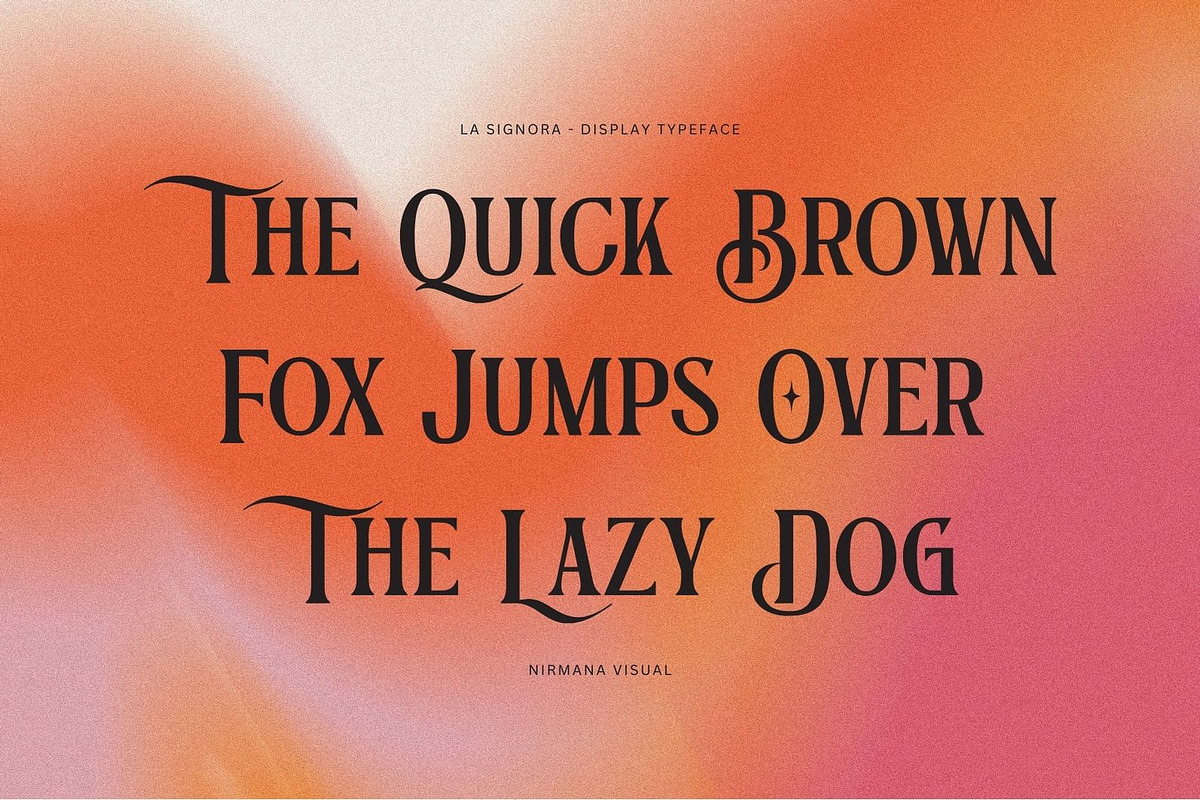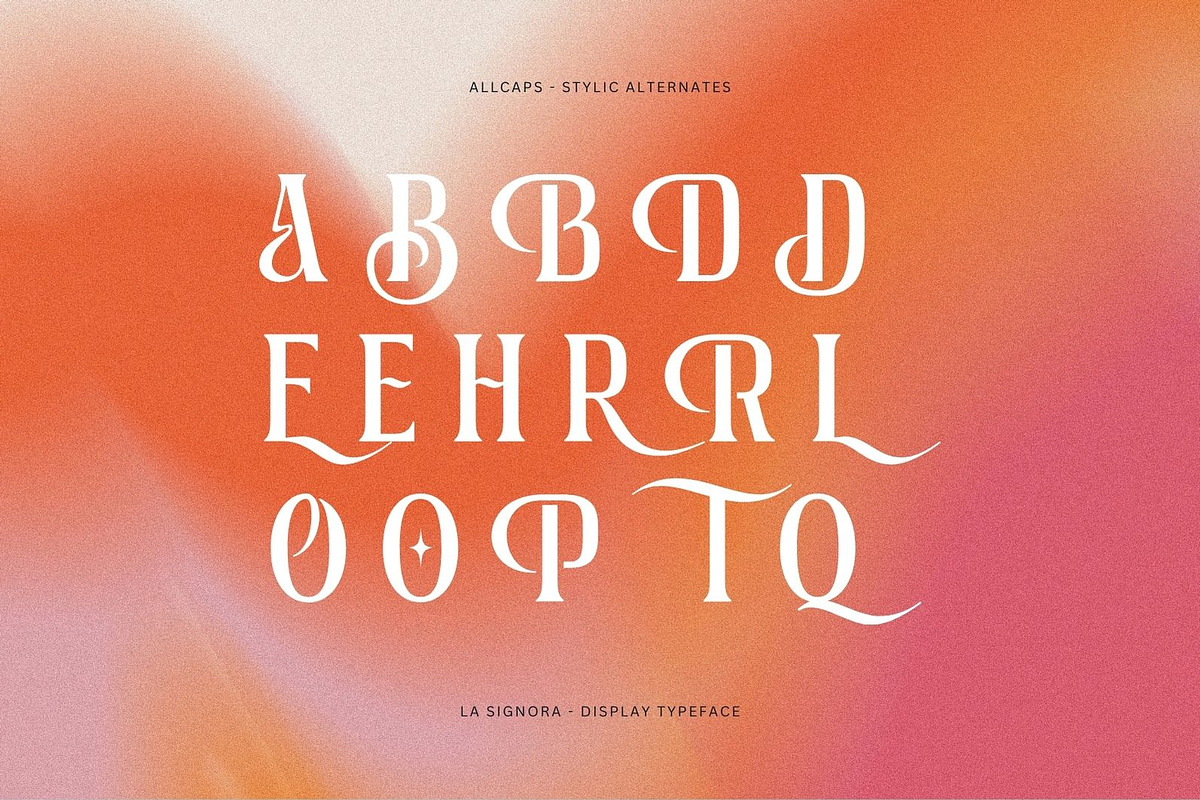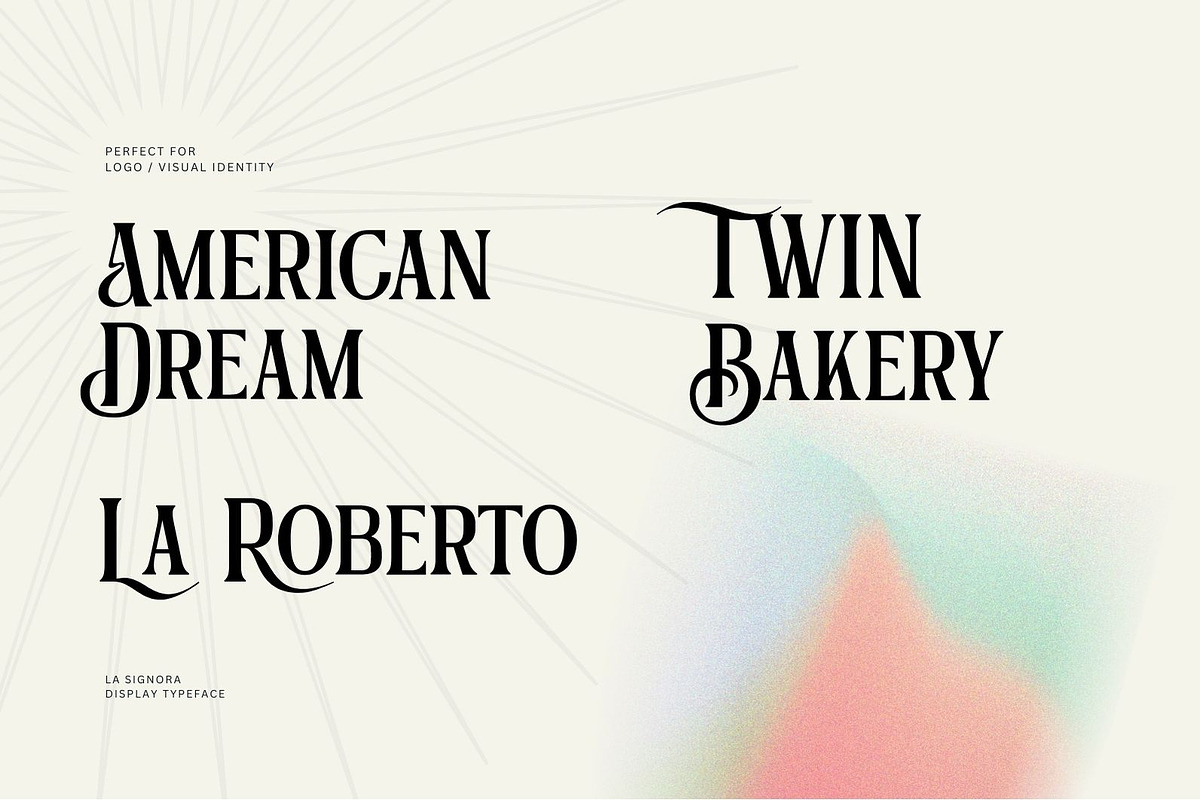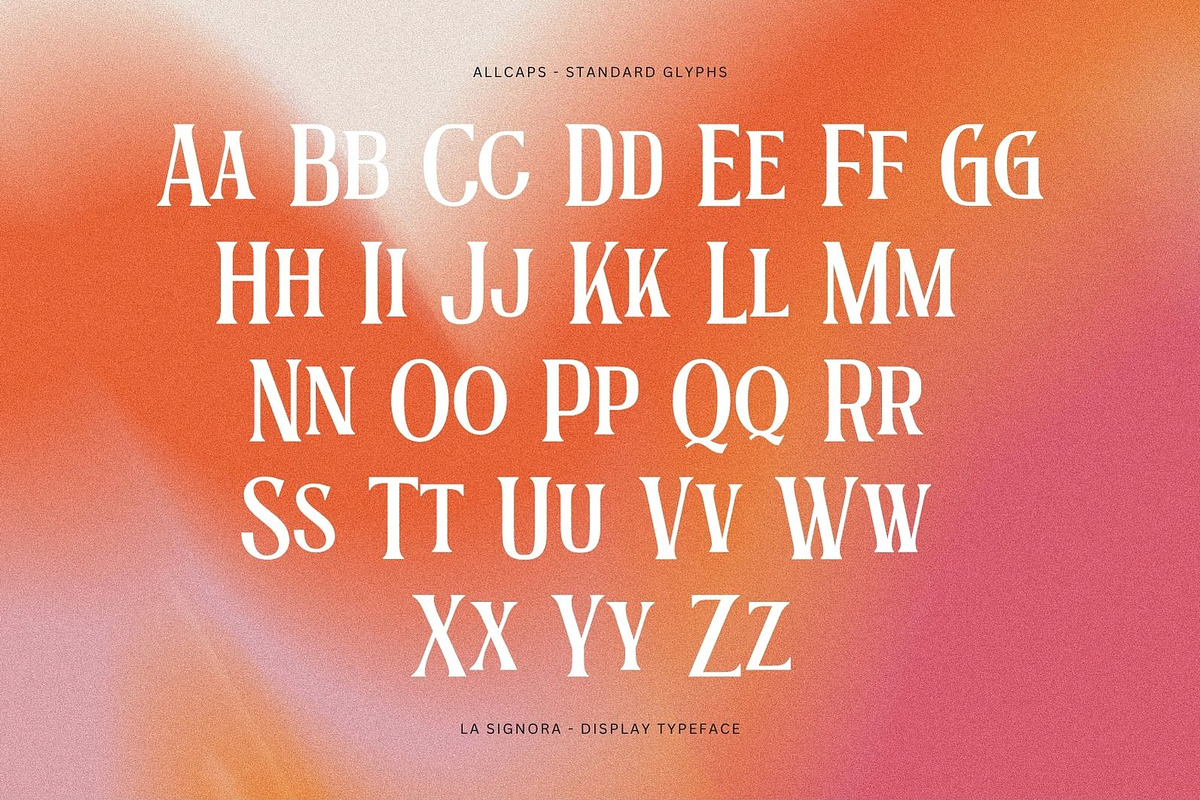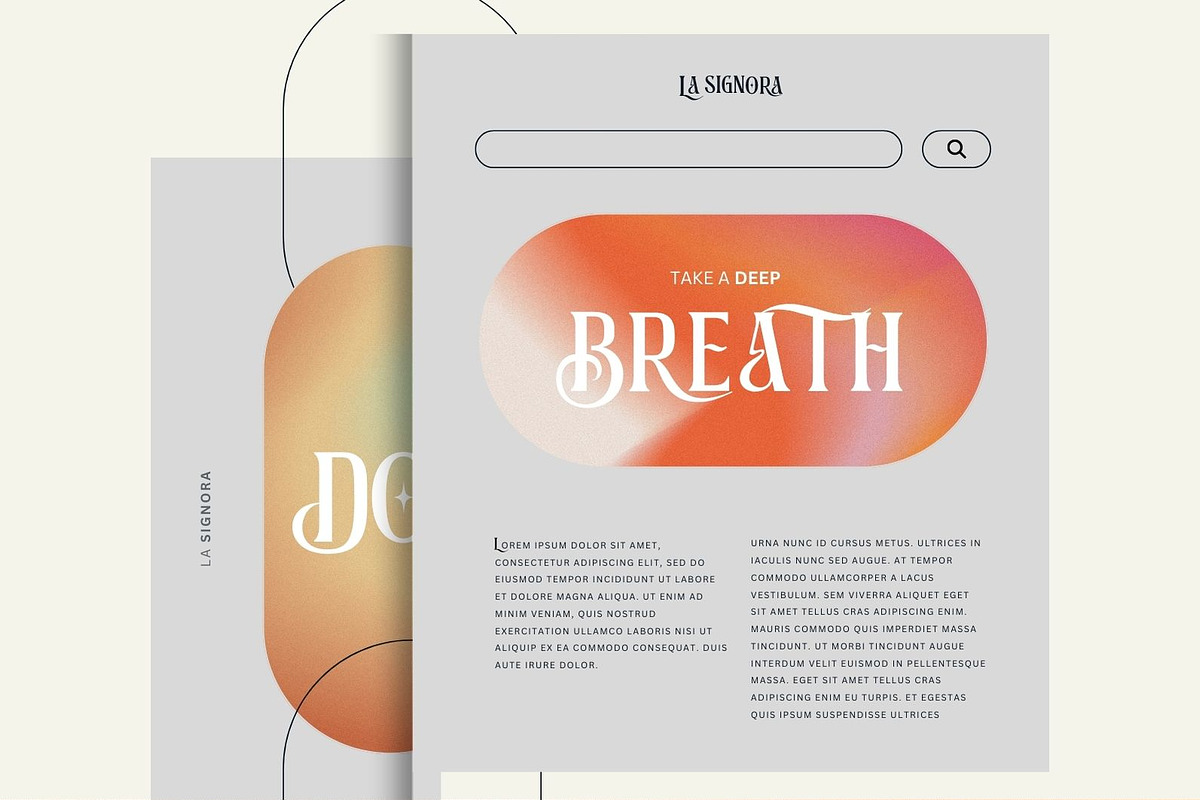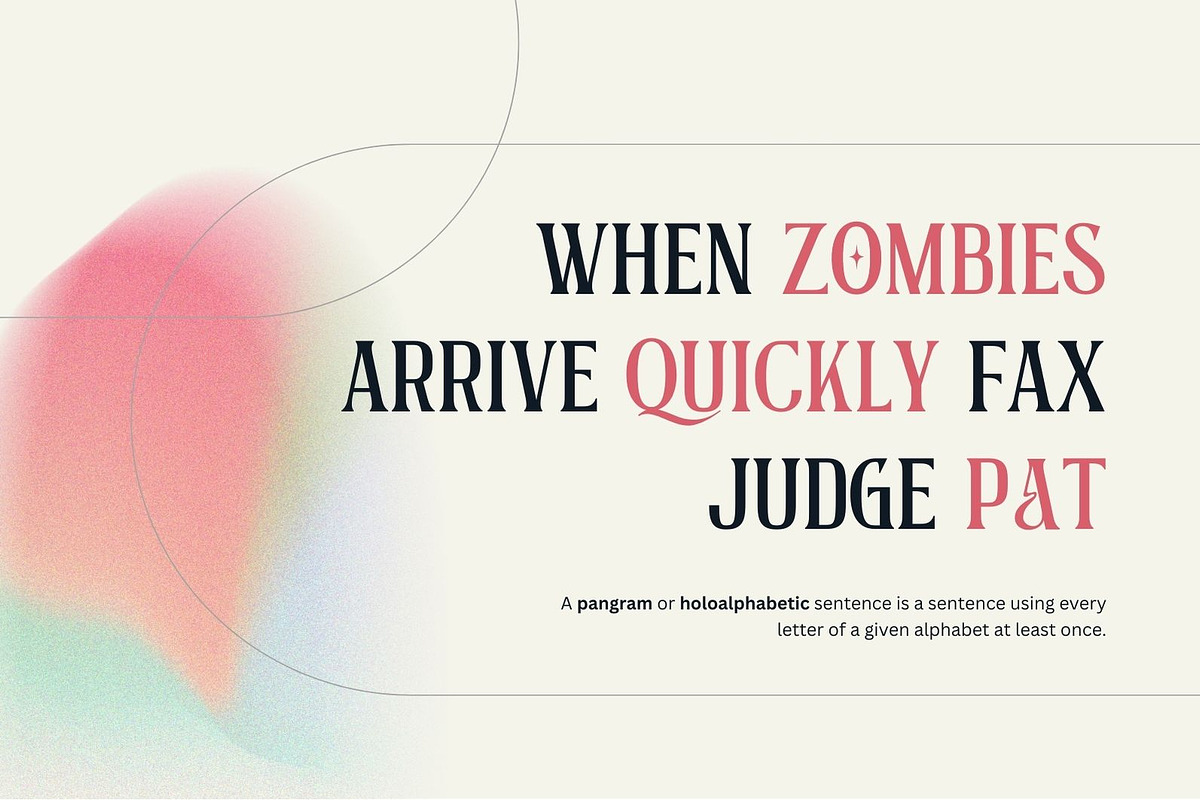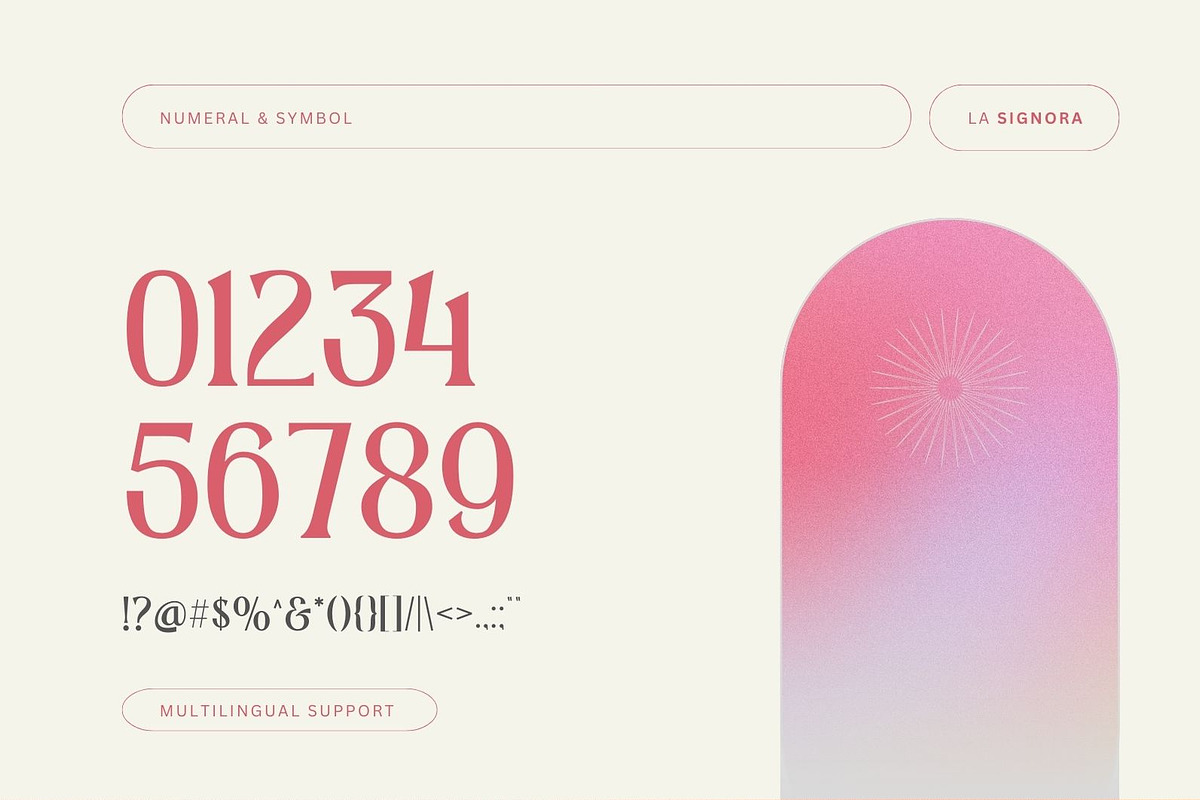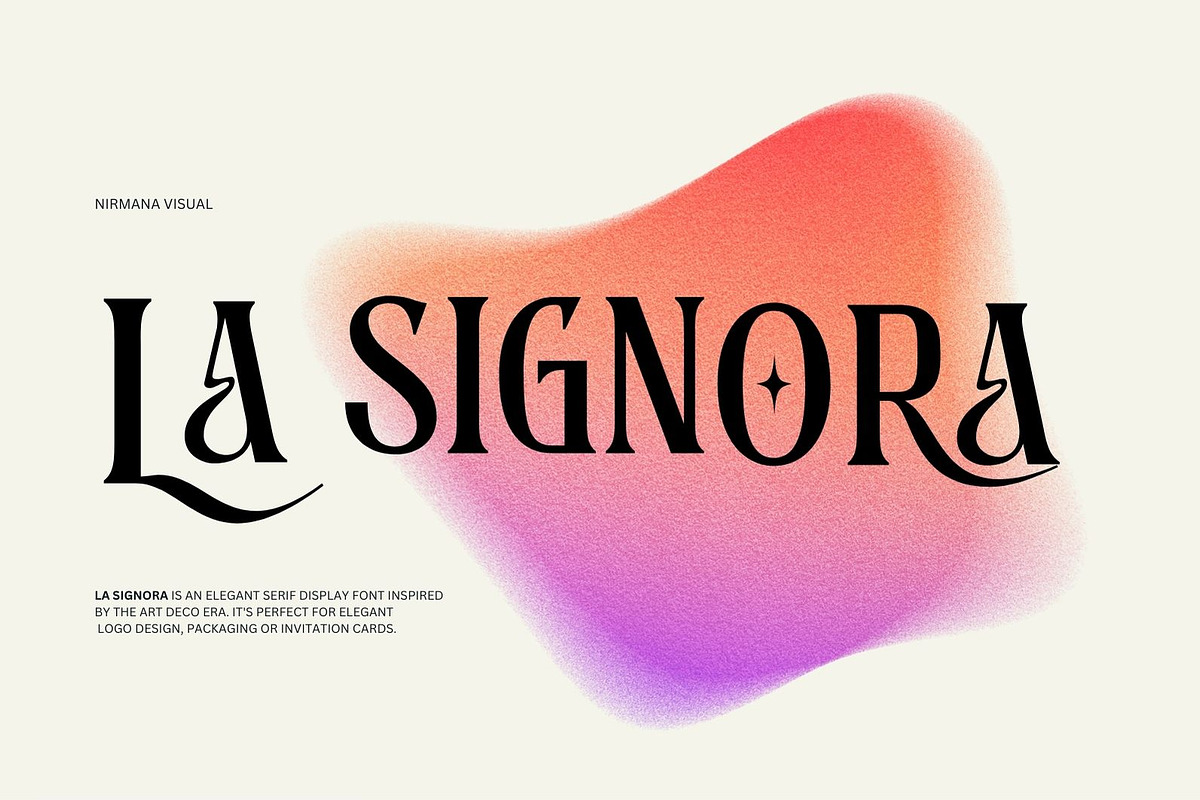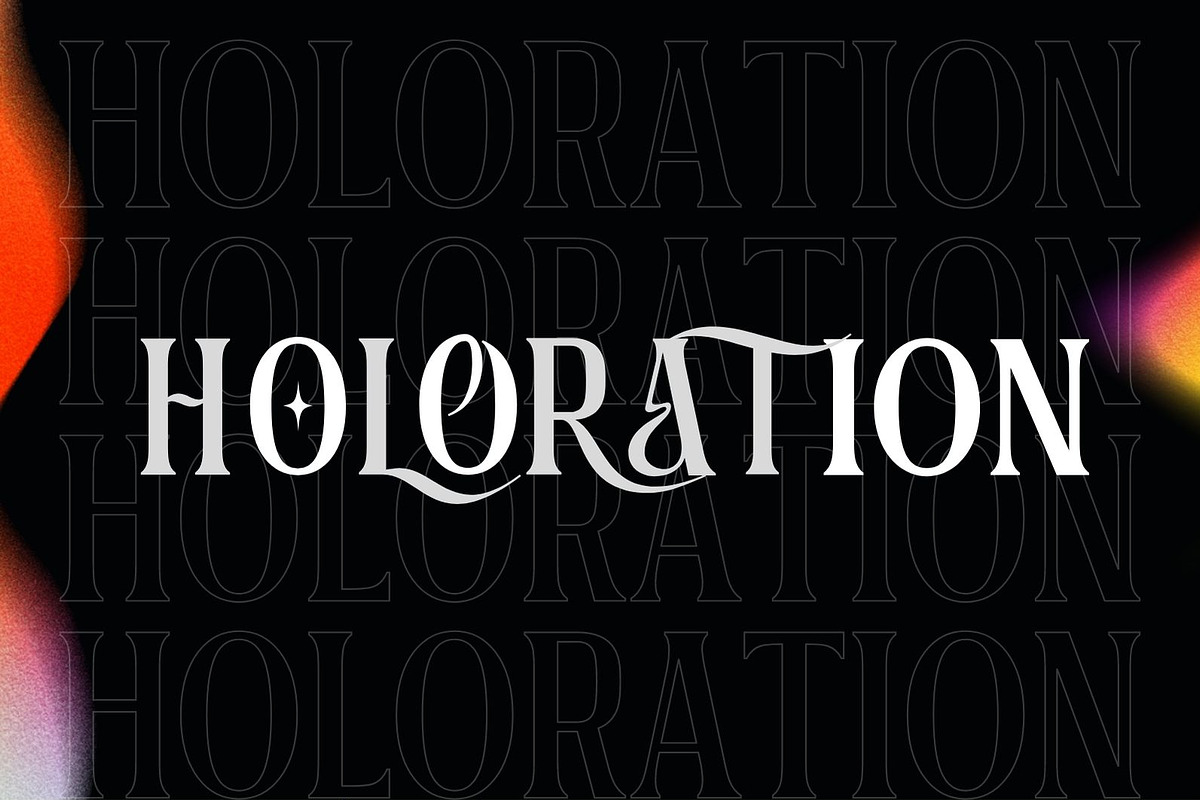
La Signora - Display Serif
La Signora ,contemporary of Serif font inspired by Art Deco Design era.
La Signora offers beautiful typographic harmony for a diversity of design projects, including logos & branding, social media posts, advertisements & product designs.